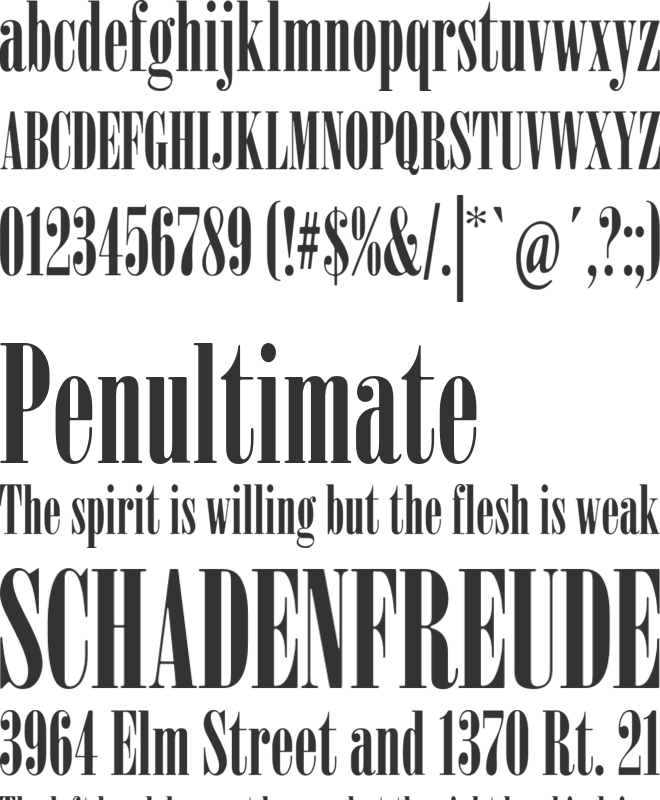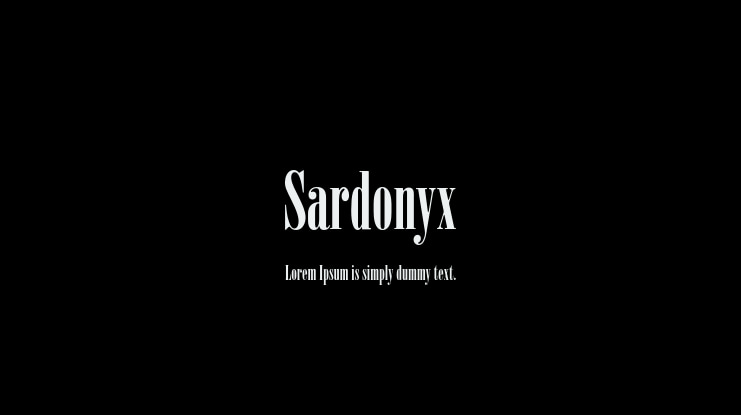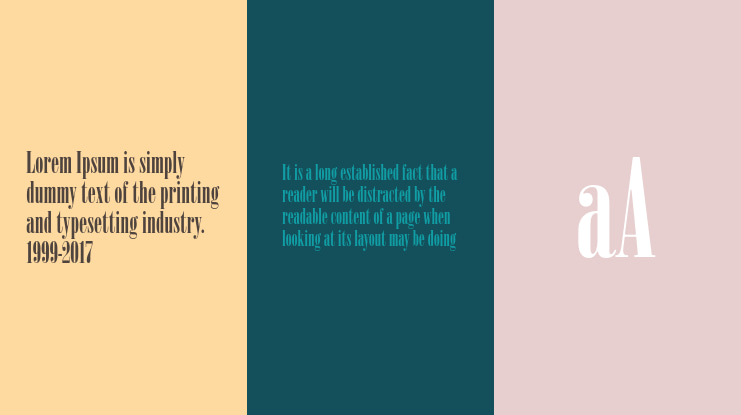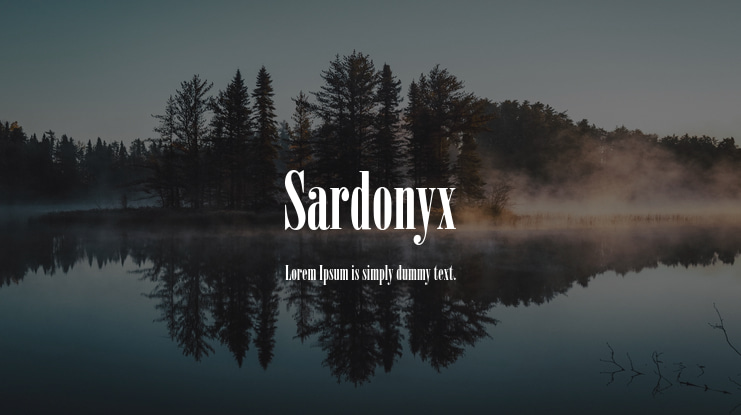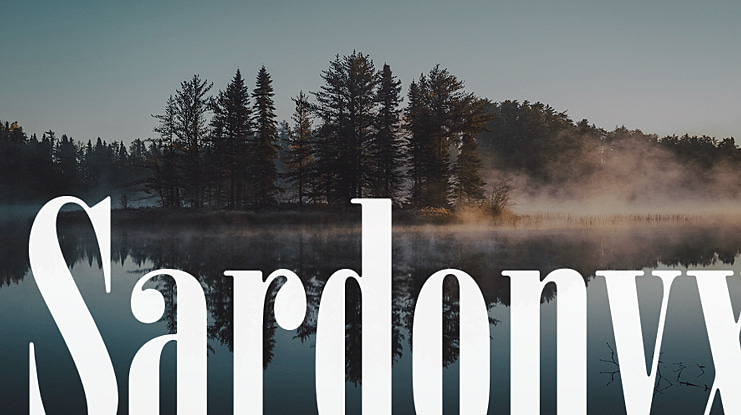
Sardonyx Font
Sardonyx is a soft version of Onyx which takes the best features of the many incarnations of Gerry Powell’s 1937 masterpiece, adds new details (like the more elegant a and Q), numerous subtleties and refinements, and includes rounded corners throughout the font for a refreshingly contemporary twist.